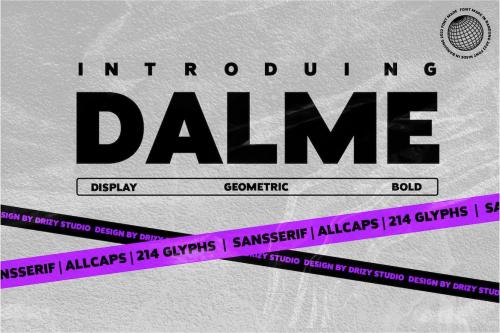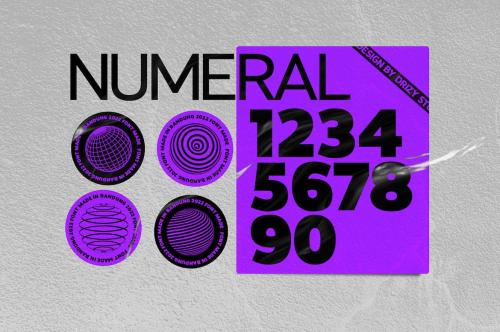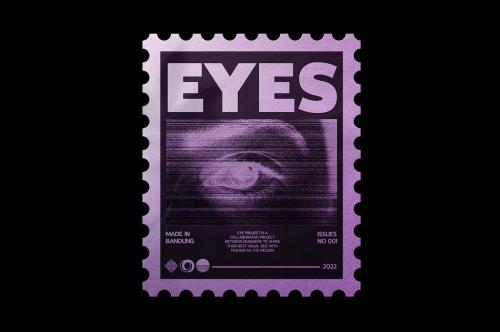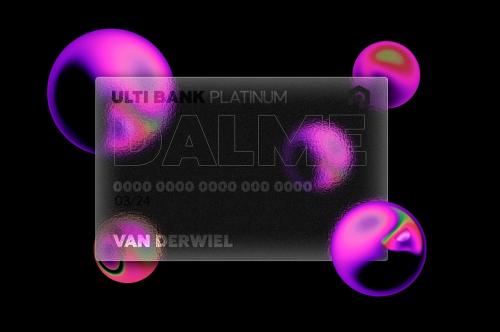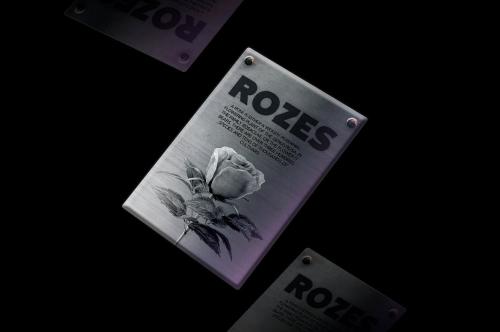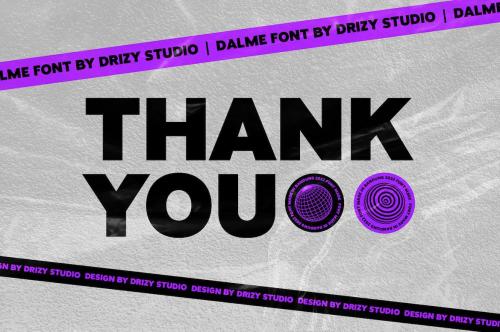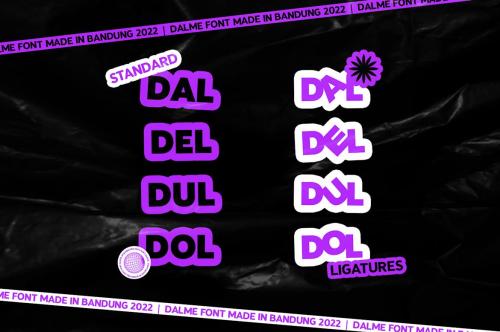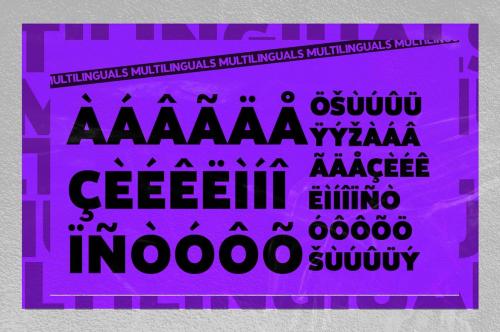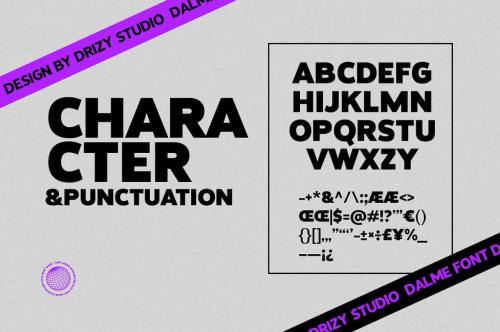
adalme - 几何字体
Dalme - Geometric Font
Introducing Dalme! a bold geometric display font from Drizy! Dalme will help you create a success project.
Dalme Features:
Uppercase
Numeral & Punctuation
Multilinguals & Ligatures